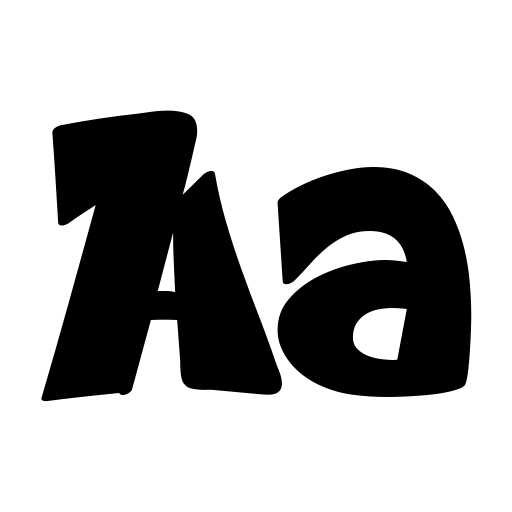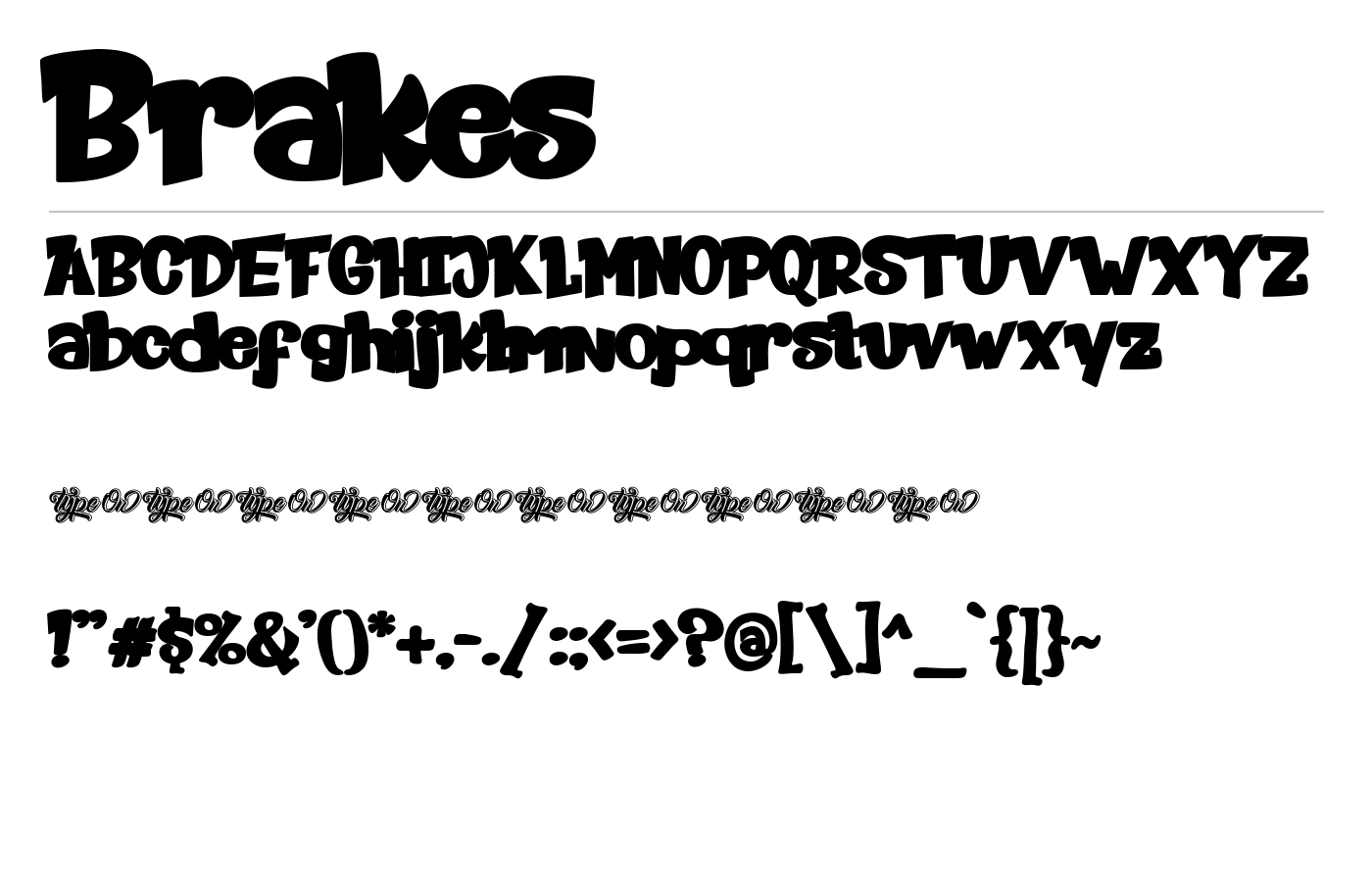
Brakes is a bold, playful sans serif font with a chunky, slightly irregular design that gives it a fun and informal vibe. Its thick strokes and upright letterforms make it highly legible, while the quirky shapes add character and personality, perfect for children’s books, casual branding, or eye-catching headlines. This font works best where a lively, energetic touch is needed to grab attention and convey friendliness.
Brakes Font